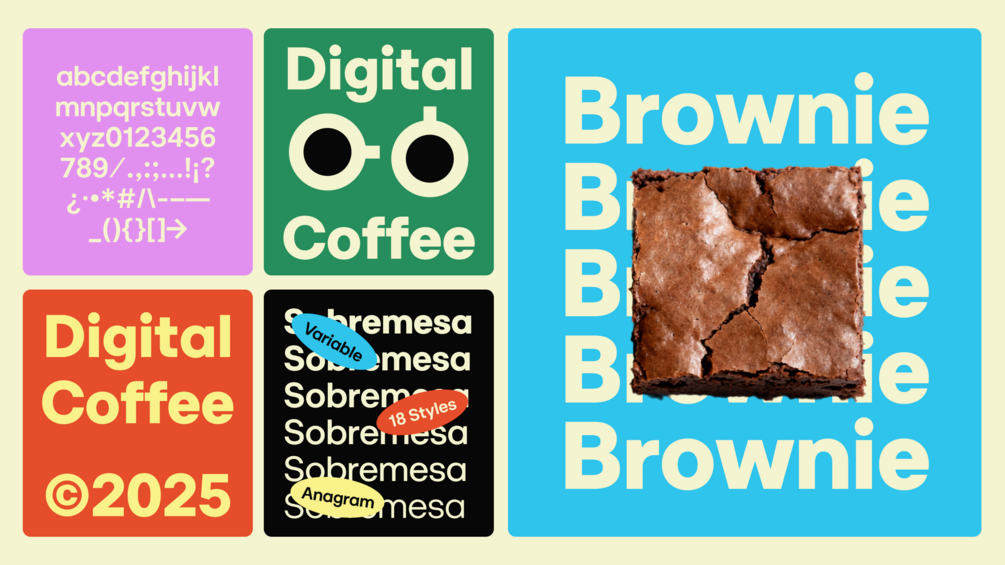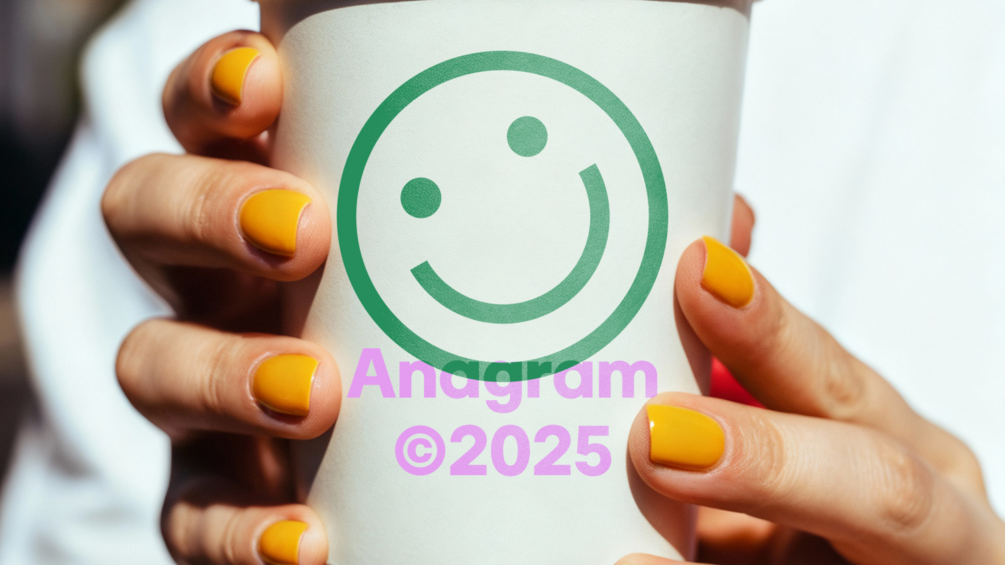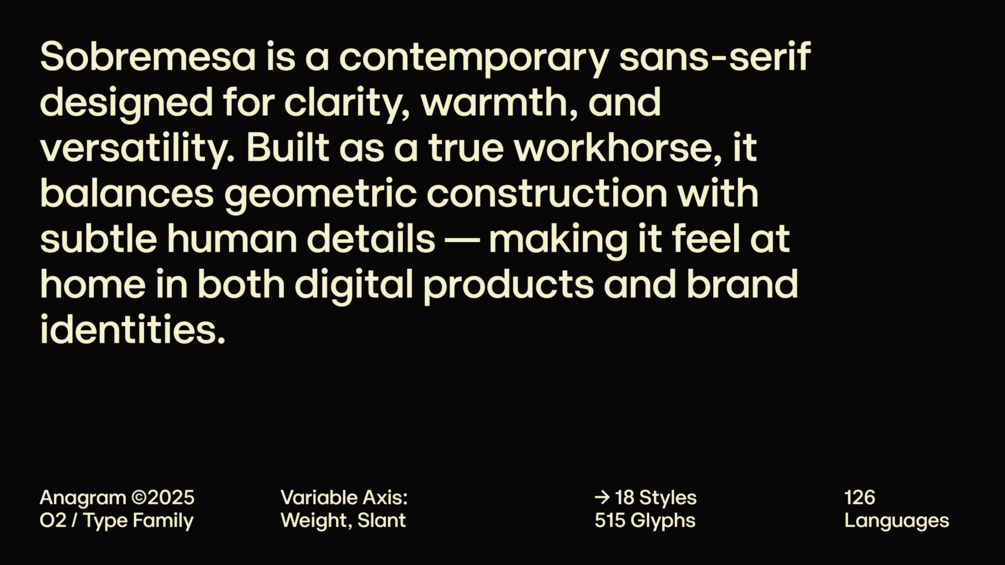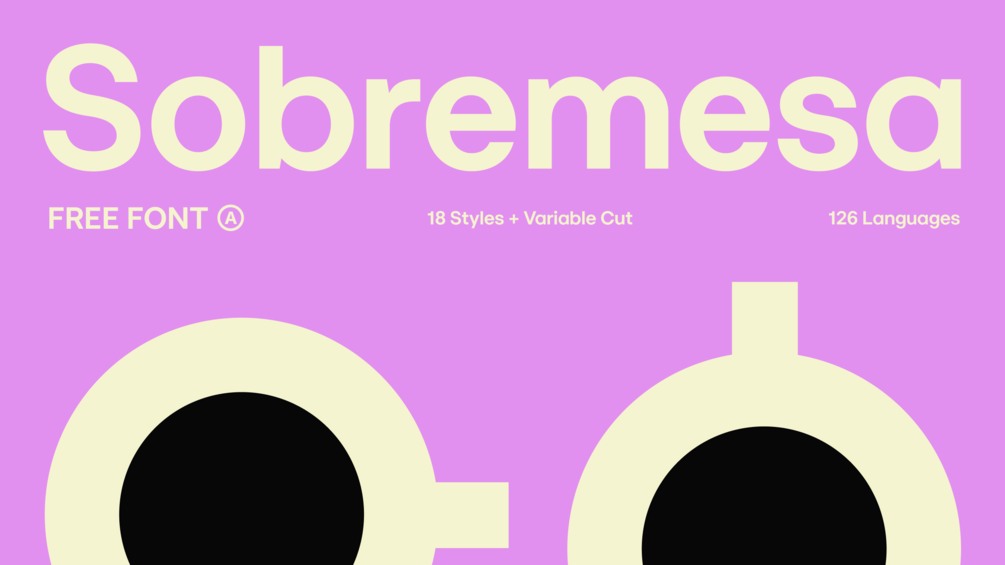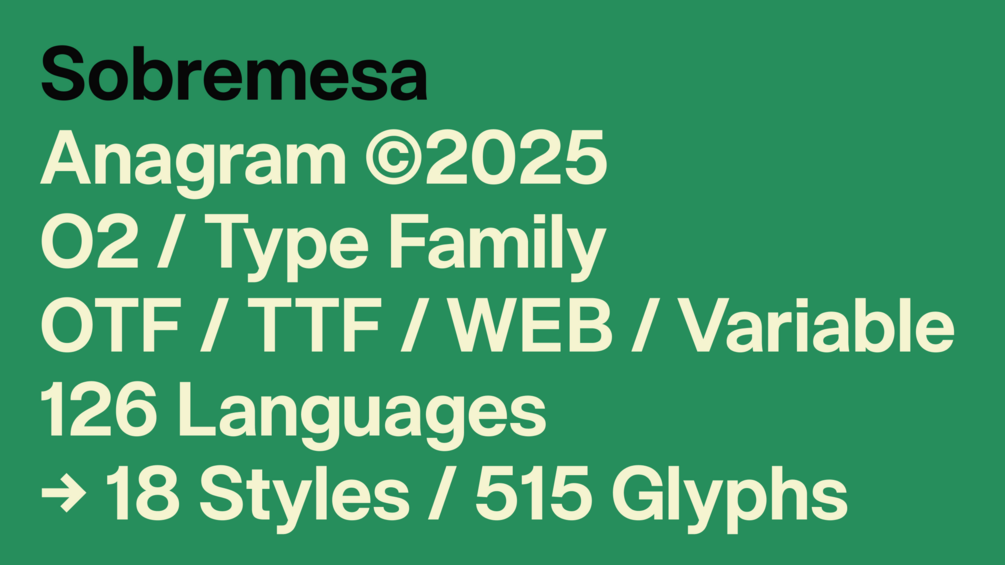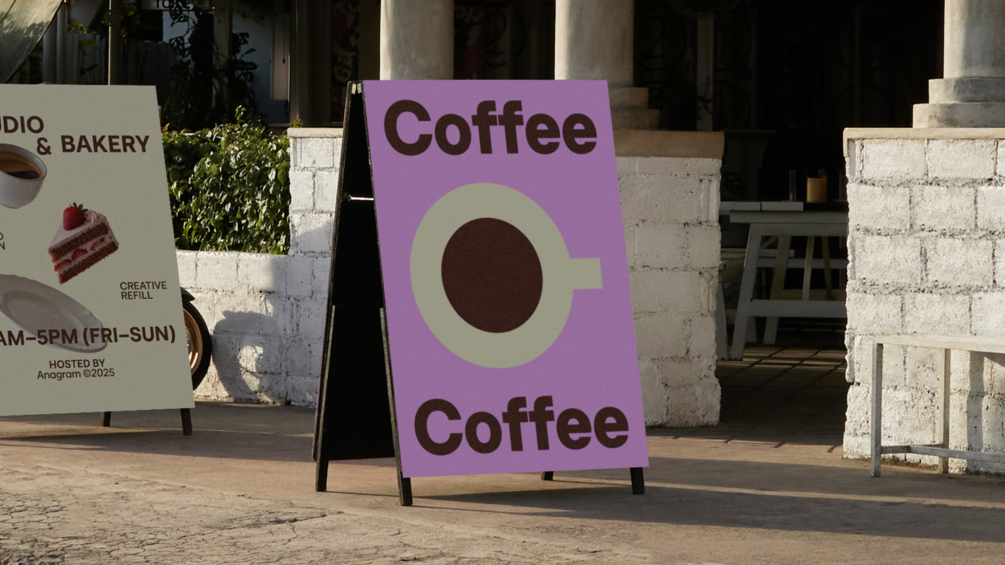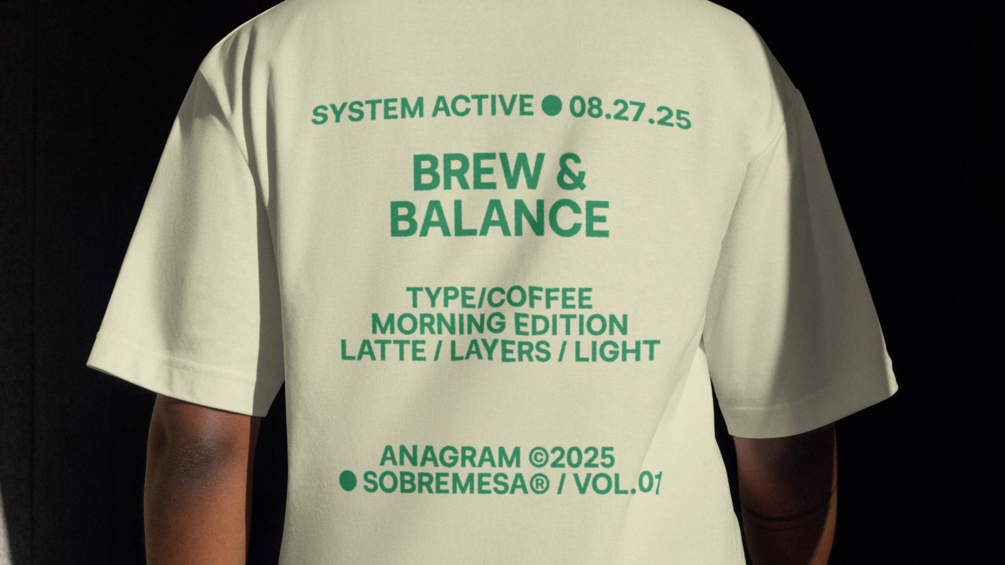
Sobremesa Typeface
Sobremesa is a contemporary sans-serif designed for clarity, warmth, and versatility. Built as a true workhorse, it balances geometric construction with subtle human details — making it feel at home in both digital products and brand identities.
• 18 Styles (Inc. Italics) + Variable Cut
• 515 Characters
• Supports 126 Languages